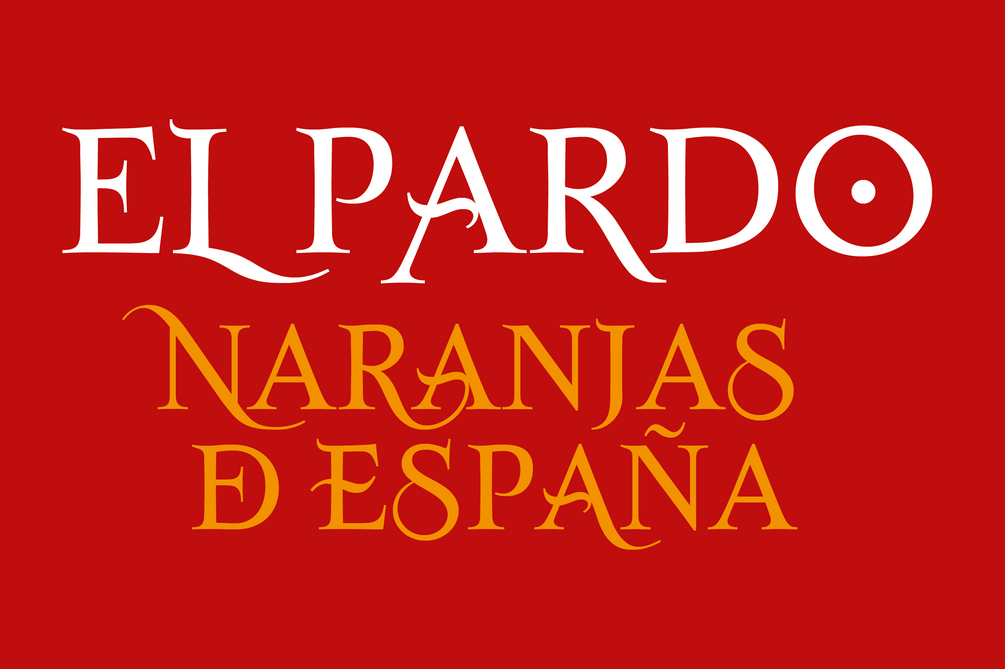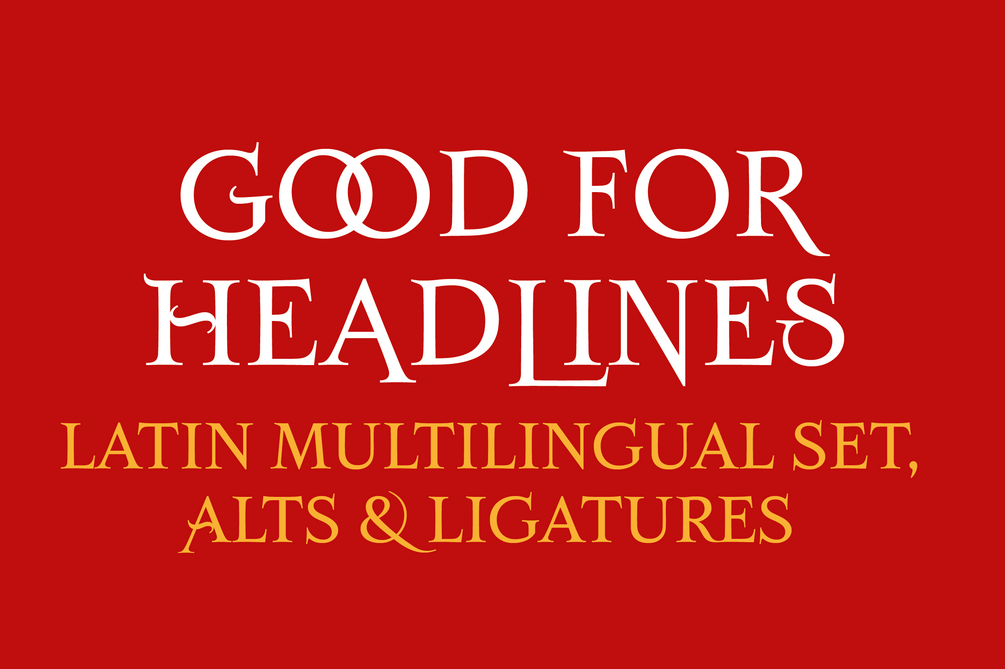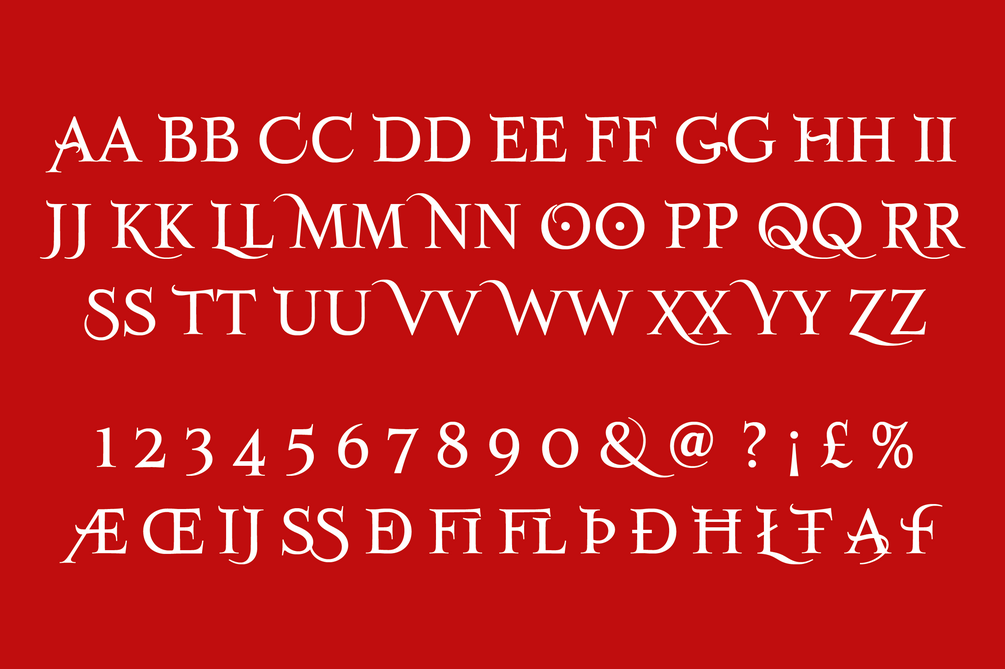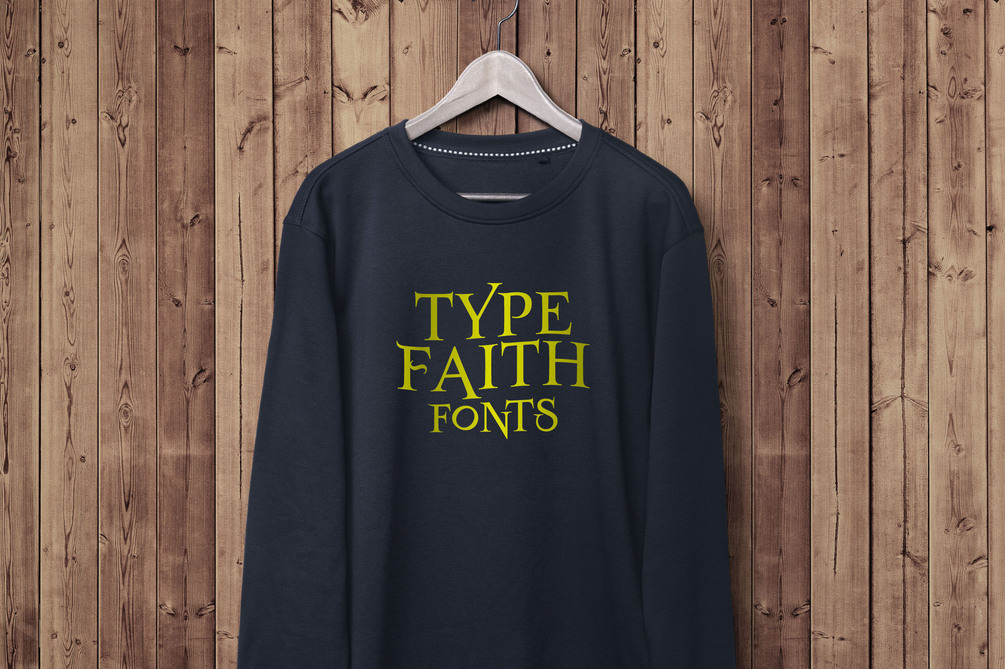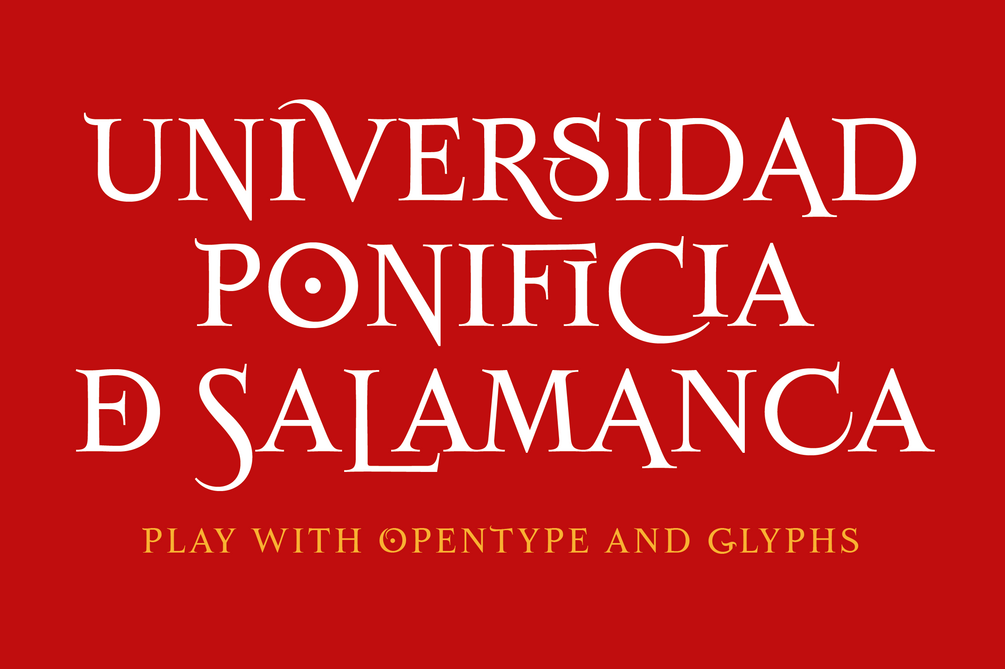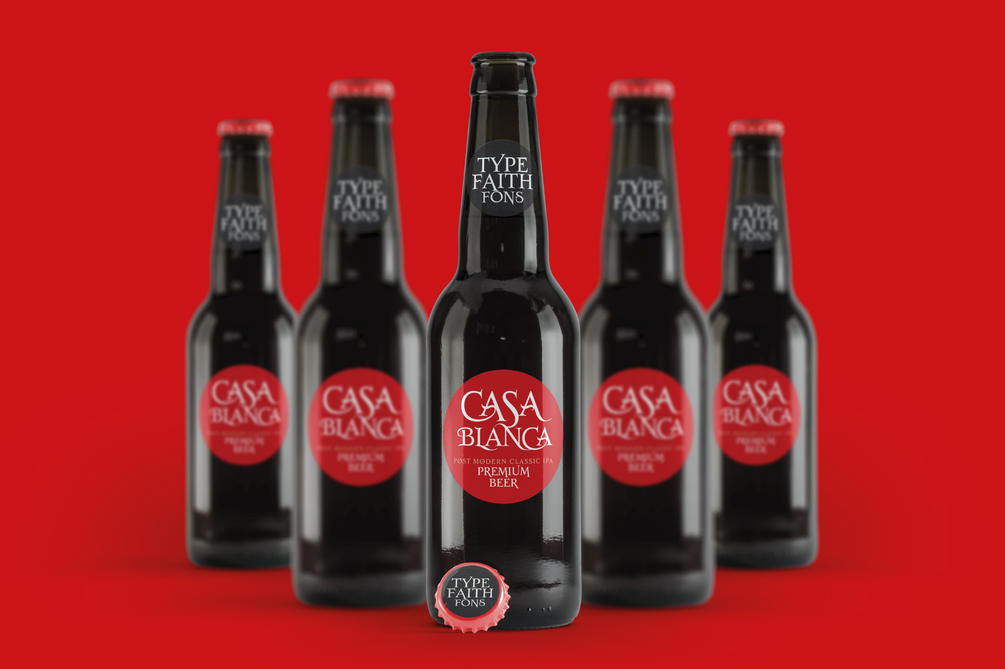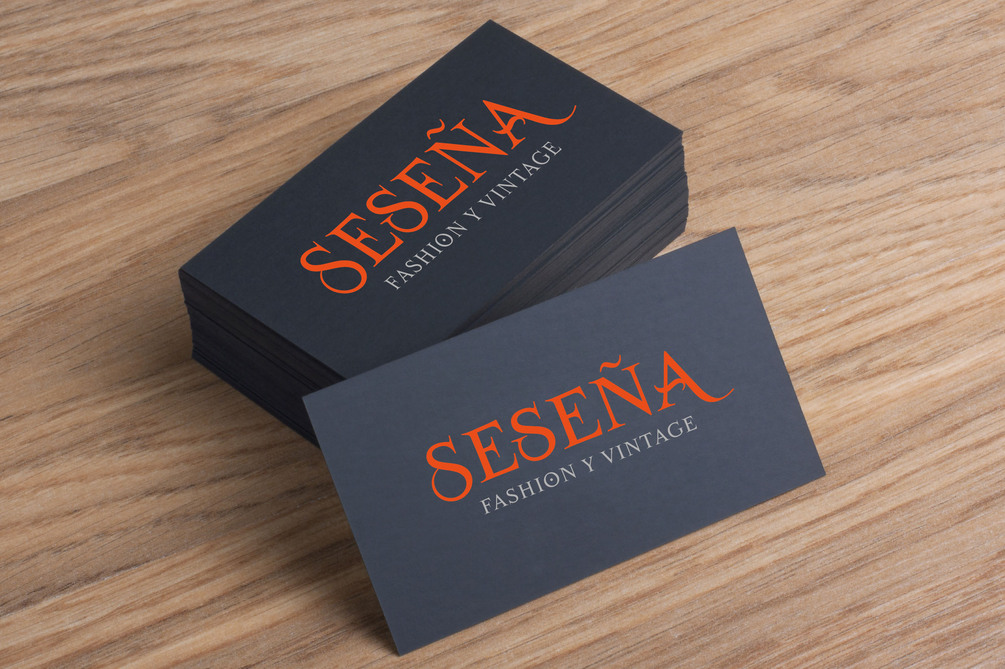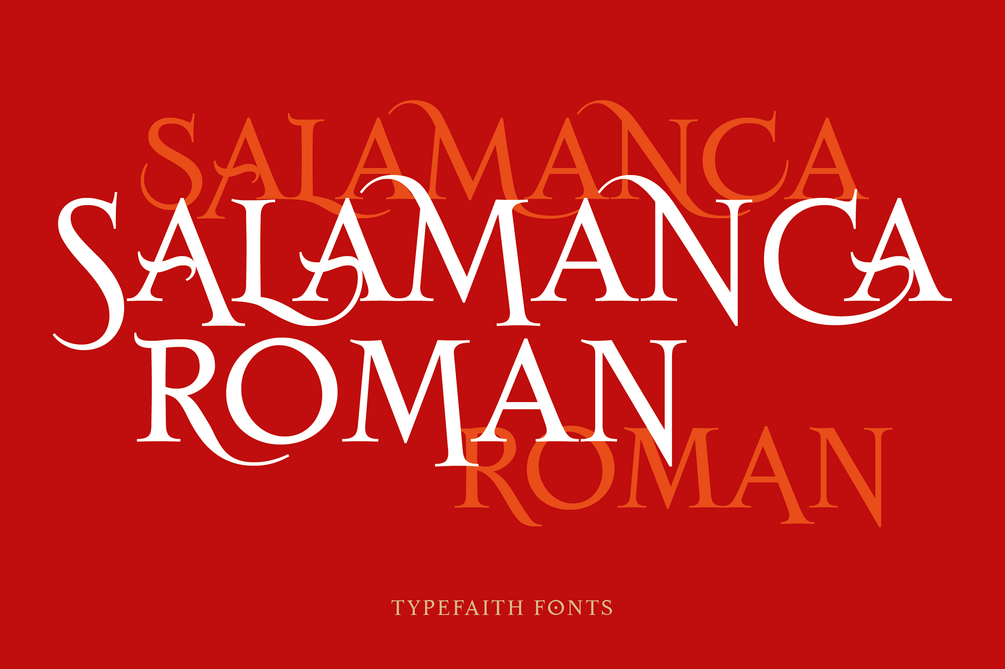
Salamanca Roman
Salamanca Roman is a decorative typeface inspired by the striking wall typography found in the Spanish city of Salamanca, particularly on the official buildings and universities. The letters, painted directly on the walls, were ornamental, irregular, and full of character, and it was during a trip in the mid-1990s that these forms first caught the designer’s attention. The first version of the font appeared in 1994 under the name Salamanca Official, later refined and released as Salamanca TF. Almost three decades later, in 2023, the typeface was reworked once again to improve its usability.
The latest release, Salamanca TF Roman, offers a more balanced and regular “normal set” alongside graceful variations available through alternates and swashes, allowing for decorative and customized typographic effects. With OpenType features and an extensive glyph palette, Salamanca Roman is a fun and versatile display typeface that makes it easy to create unique and expressive typographic compositions.